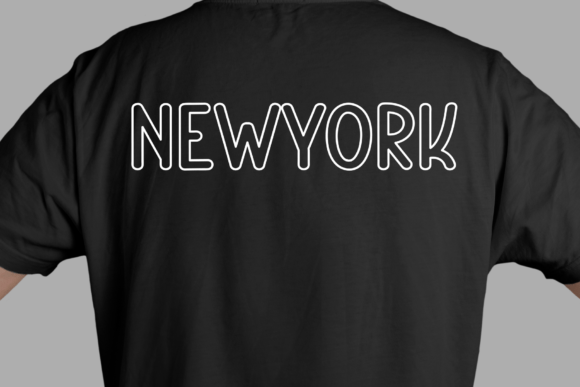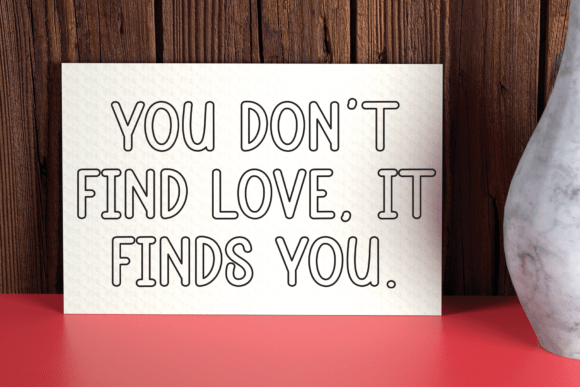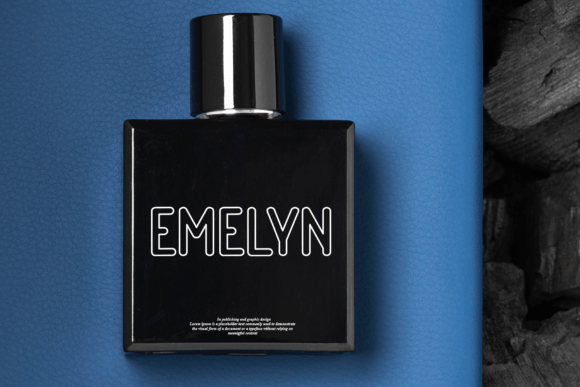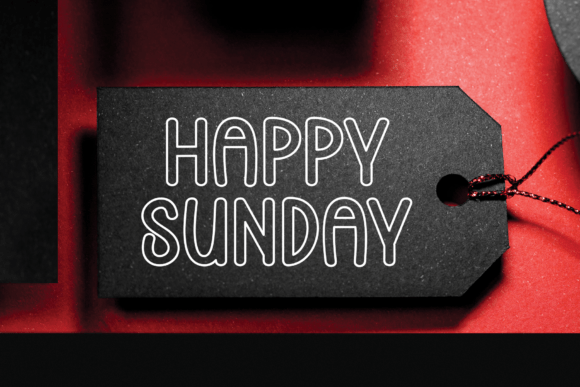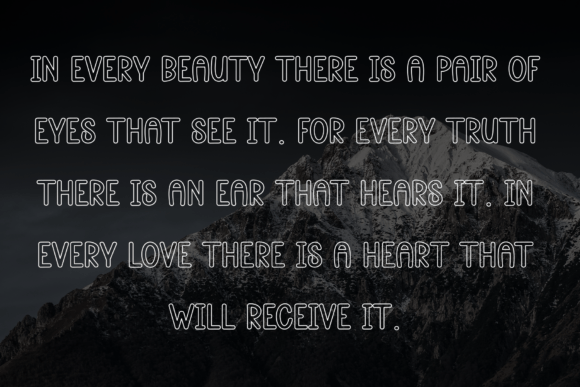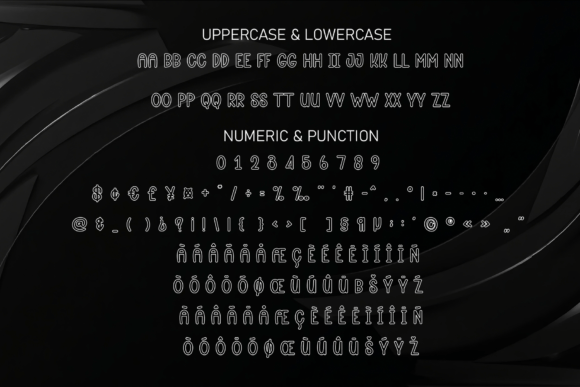
Introducing Dark Mode Font: The Perfect Handwritten Display Font for Your Designs
Are you tired of using the same old fonts in your designs? Do you want to add a touch of warmth and personality to your projects? Look no further than Dark Mode Font, a charmingly engaging and warm handwritten display font that’s sure to capture the hearts of your audience.
The Perfect Blend of Playfulness and Sophistication
Dark Mode Font is designed to exude an endearing charisma that adds an element of joy and playfulness to your designs. Its unique and elegant handwritten style makes it perfect for crafting heartwarming wedding invitations, heartfelt greeting cards, or any design that needs a spritz of fun. Whether you’re a designer, crafter, or DIY enthusiast, this font is sure to become your new go-to choice.
What Makes Dark Mode Font So Special?
So, what sets Dark Mode Font apart from other fonts out there? Here are just a few reasons why this font is a cut above the rest:
- Handwritten with love: Dark Mode Font is carefully crafted with a handwritten style that’s both personal and relatable. Its imperfections and quirks make it feel more human and endearing.
- Perfect for emotional designs: This font is steeped in sweetness and friendliness, making it the quintessential addition to express emotions through typography. Whether you’re designing a wedding invitation or a sympathy card, Dark Mode Font is sure to convey your message with warmth and sincerity.
- Versatile and adaptable: Dark Mode Font is a versatile font that can be used in a variety of design projects, from digital graphics to print materials. Its adaptability makes it easy to pair with other fonts and design elements to create a unique look that’s all your own.
How to Use Dark Mode Font in Your Designs
Now that you know how special Dark Mode Font is, let’s talk about how to use it in your designs. Here are a few ideas to get you started:
- Wedding invitations: Use Dark Mode Font to create beautiful, one-of-a-kind wedding invitations that set the tone for a romantic and unforgettable celebration.
- Greeting cards: Add a personal touch to your greeting cards with Dark Mode Font. Whether it’s a birthday, anniversary, or get-well card, this font is sure to make your message feel more heartfelt and sincere.
- Digital graphics: Use Dark Mode Font to add a touch of warmth and personality to your digital graphics, such as social media posts, blog headers, and email newsletters.
Tips for Pairing Dark Mode Font with Other Design Elements
To get the most out of Dark Mode Font, it’s essential to pair it with other design elements that complement its unique style. Here are a few tips to keep in mind:
- Pair with simple backgrounds: Dark Mode Font looks best against simple backgrounds that don’t compete with its elegant style. Try pairing it with a solid color or a subtle texture to create a clean and sophisticated look.
- Use contrasting fonts: To create visual interest and hierarchy in your design, try pairing Dark Mode Font with a contrasting font that’s bold, modern, or sans-serif.
- Add playful illustrations: Dark Mode Font is perfect for designs that need a touch of whimsy and playfulness. Try pairing it with playful illustrations or graphics to create a fun and engaging design.
In conclusion, Dark Mode Font is a charmingly engaging and warm handwritten display font that’s perfect for designers, crafters, and DIY enthusiasts. Its unique style and versatility make it an excellent choice for a wide range of design projects, from wedding invitations to digital graphics. With its ability to convey emotions and add a touch of personality to your designs, Dark Mode Font is sure to become a staple in your font collection.